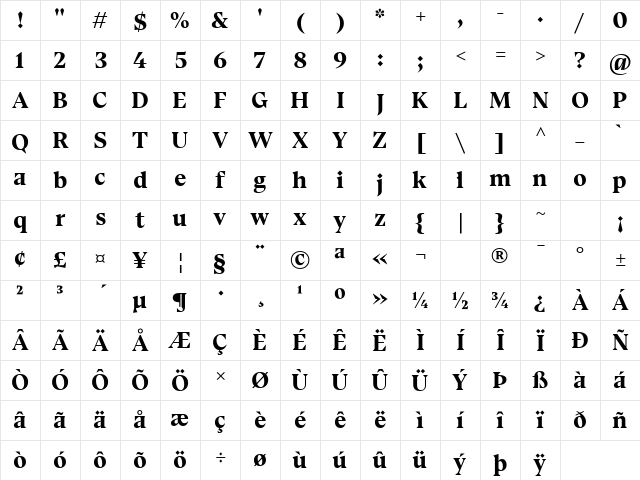
Bluu Suuperstar Bold Free Font
Bluu Suuperstar Bold
Foundry: Black Foundry
Designer: Jean-Baptiste Morizot, Gaetan Baehr
Bluu Suuperstar Family
Bluu Suuperstar Bold
Design Context for Bluu Suuperstar
Bluu Suuperstar is a composed and adaptable typeface that performs quietly and consistently across a wide range of design contexts. Its bold stroke weight gives it real presence on the page.
Who designed the Bluu Suuperstar Bold font?